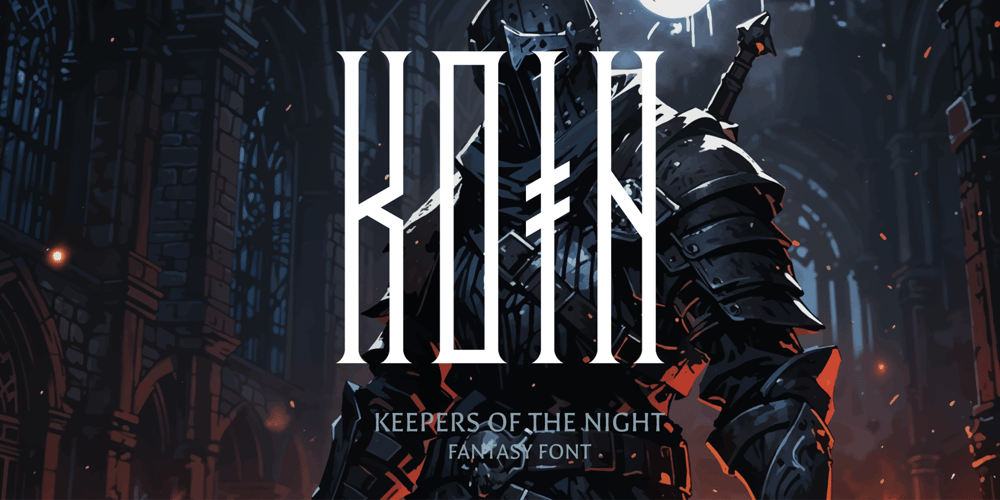
Kotn
Kotn font
Kotn Font Family was designed by Artur Chepurko and published by Dedsign. Kotn contains 1 styles and family package options. This unique Gothic font, inspired by the dark aesthetics of medieval castles and mysterious forests, is perfect for creating atmospheric headlines and decorative texts. Its characteristic sharp angles and curved lines evoke ancient manuscripts, where each letter seems to come alive, telling its own story.This font is ideal for designing books, covers, posters, and any other projects related to Gothic and fantasy themes. It will create an atmosphere of mystery and enchantment, capturing attention and immersing the reader in a world where reality intertwines with fantasy.